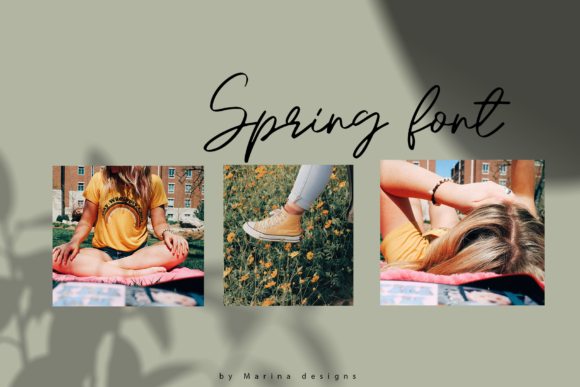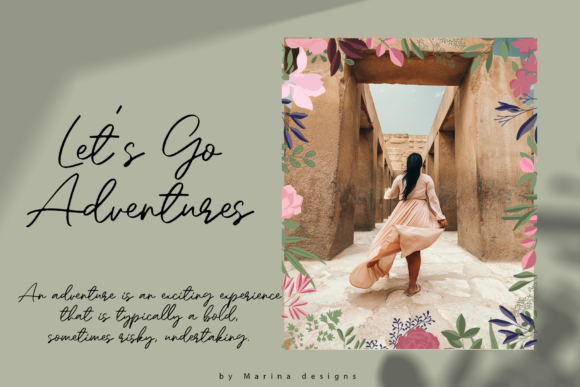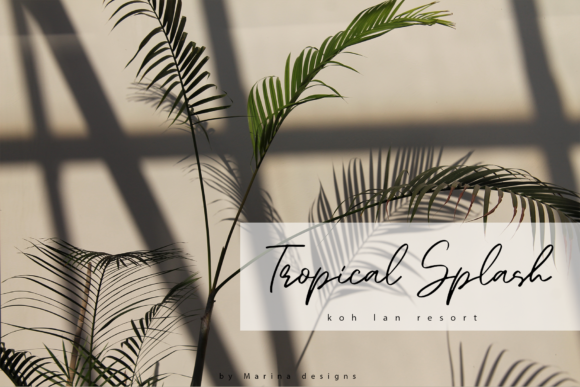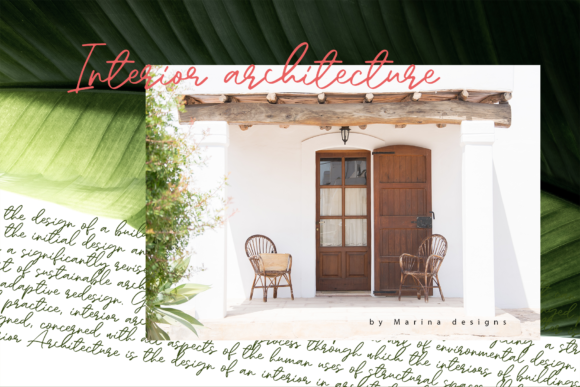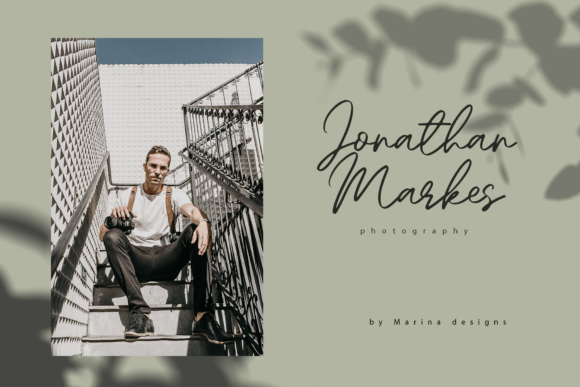
Lalica  Font
About Lalica  Font
Lalica is a beautiful handwritten font which is perfect for adding an elegant and unique touch to your lettering projects and branding. Every single letter has been carefully crafted to make your text looks beautiful.